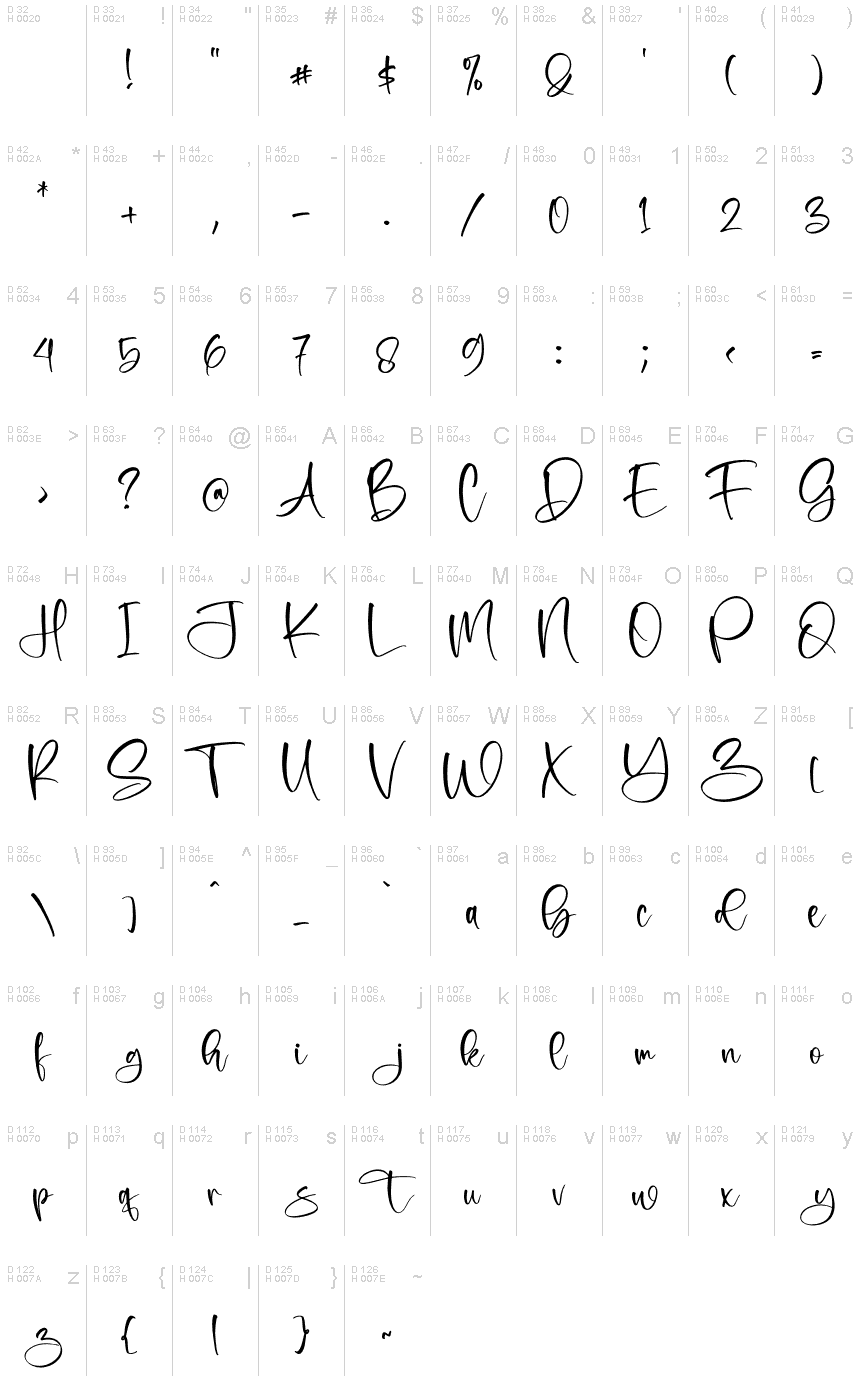
Presenting Mattersburg Fortigla, a captivating handwritten font by Letterena Studios. With its light weight, this font emanates an air of elegance and sophistication.
It is perfect for projects that require a touch of personalization and charm, such as wedding invitations or heartfelt love letters. Its flowing curves and delicate strokes bring a sense of warmth to any design, making it ideal for branding projects that aim to evoke emotions and connect with the audience on a personal level.
Mattersburg Fortigla is the epitome of grace and will surely leave a lasting impression.